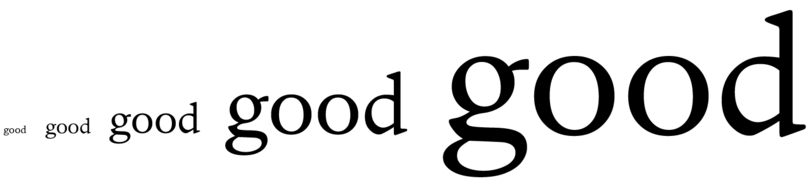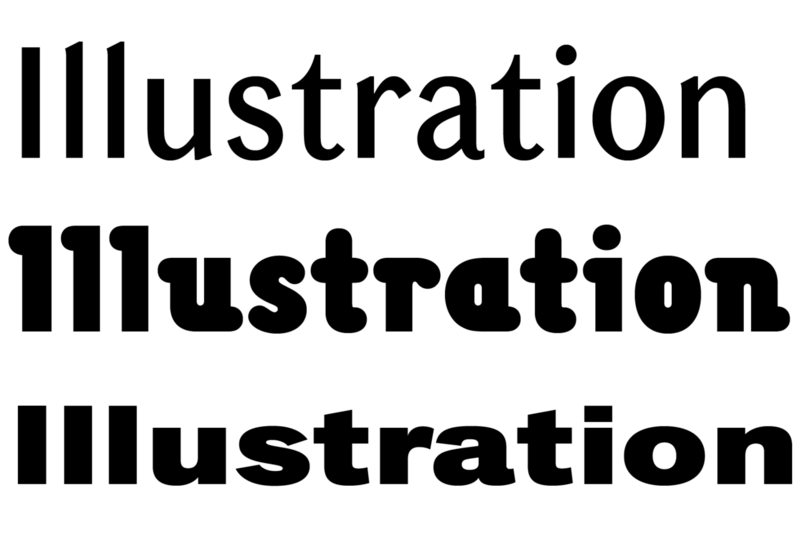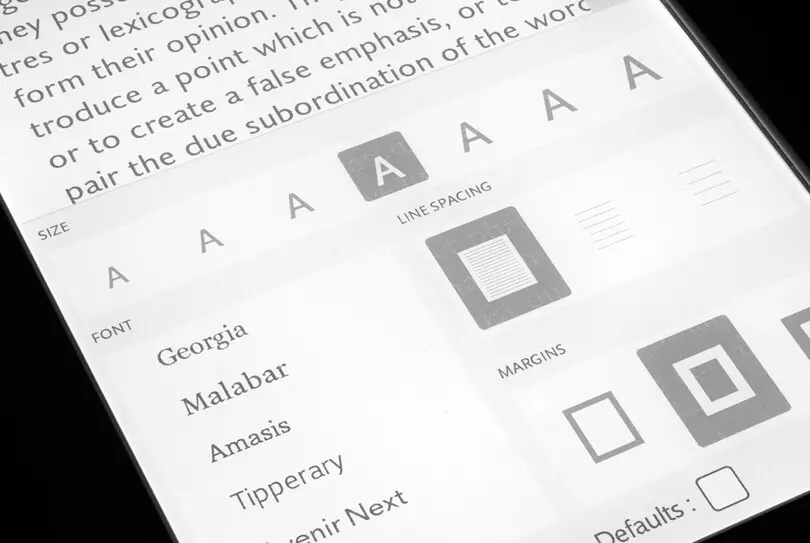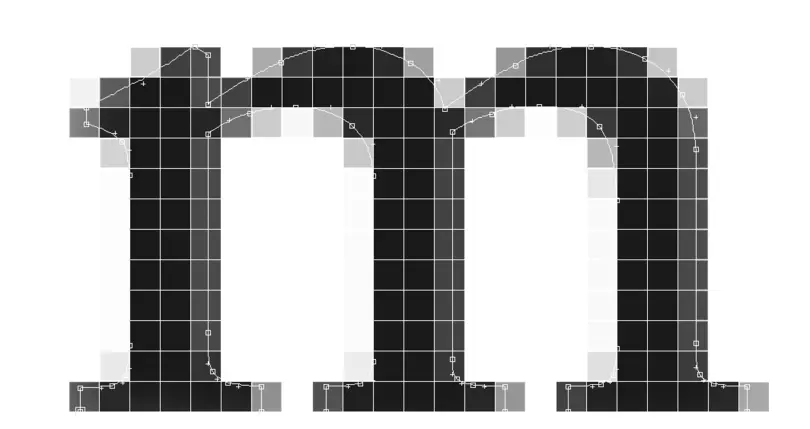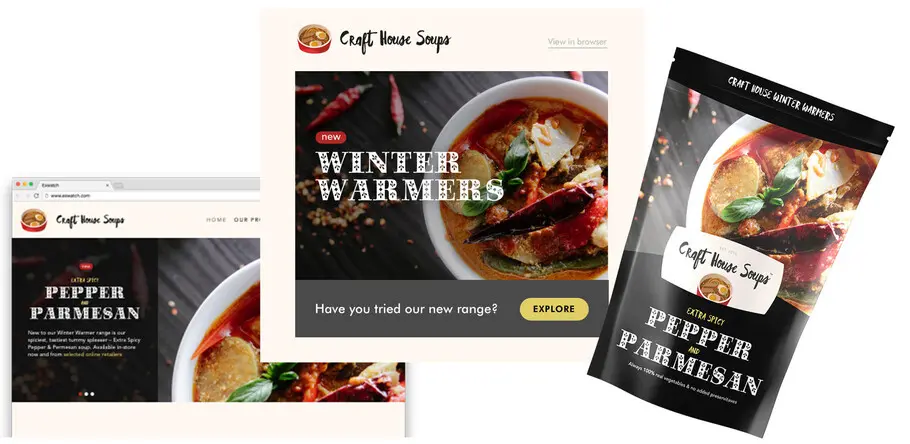
「 Serifs are often used for printed body copy to visually connect the lines of text, guiding the eye across each line like train tracks. 」
Whether you are looking for a new brand font or want to establish a consistent, optimized visual identity across the web, you’ll need a font that works everywhere. In addition to choosing the right kind of font, it’s important to consider the design of the typeface itself.
Designers are the experts on this, of course, but anyone involved in branding and marketing should understand the relationship between type design and their brand. After all, type is a brand’s primary point of connection with its customers through the content and user experience it delivers.
Here are five principles to remember when choosing a typeface for your brand:
Make sure it renders well in different sizes
A font needs to be legible when it’s tiny and maintain its integrity as its size increases. Display sizes are appropriate for very large type, such as headlines, but generally, you should test your fonts to make sure they scale well.
Print offers a superior level of control because you always know how your audience will be experiencing your design. The variables inherent in digital work, however, mean you need strong, versatile type. Look for a font family that offers a robust selection of weights, and read up on x-height, kerning, and hinting—doing so will help you choose a font that enables compelling designs and a pleasant, memorable user experience.
Consider shades of gray
There is a debate within the design community over what color your body text should be. To most eyes, standard text appears to be black, but it is in fact often rendered in a dark gray, with the exact shade varying by brand or publication. True black can be hard on the eyes, though some argue that a lower-contrast gray is difficult to read as well.
The point is, make sure a font will work with whatever shade you use. Light grays don’t always look great on the web or on mobile, so don’t be afraid to experiment with different shades, and make sure the level of contrast enhances legibility.
Give it space
Reading on a back-lit, digital device poses unique challenges to basic readability. You want the reader’s eye to move smoothly over the copy, and text that is too compressed or overly stretched can cause the reader to strain. Fonts with good spacing between characters, open shapes, varying proportions, and distinct letterforms work well for digital. Tight tracking might work in printed newspaper articles, but it doesn’t always fly online.
In general, type that is very large can be spaced closely together. If it is very small, the opposite is true. It comes down to screen size and viewing distance: The difference between user experiences on a phone screen and on a desktop screen is considerable, and the acid test for type is whether it’s comfortable to read.
Correct spacing, paired with appropriate text color, helps to create an efficient, hassle-free customer experience. You want your customers to easily read product descriptions, calls to action, and other touchpoints along the buyer’s journey, so it’s essential to make the act of reading enticing.
Another concern is screen real estate. Some online use cases, such as digital ads, place severe restrictions on the amount of text that can be used. A nice, narrow sans serif font can save on valuable space in a world where assets need to be designed for the same level on legibility on the largest desktop monitor and the smallest phone.
How to choose a font that works everywhere.
Form matters
Serifs are often used for printed body copy to visually connect the lines of text, guiding the eye across each line like train tracks. However, serifs—especially thin serifs—don’t necessarily translate well to pixels at small sizes, and those delicate, curved font feet can feel like visual noise on the web.
This directly affects the way customers interact with your brand, so consider a complementary sans serif typeface (or a serif that was built for eText, such as Garamond eText or Dante eText) where usability is paramount. Remember that serif fonts do work well in larger digital text, such as headlines, and can give a piece a scholarly look.
With sans serif fonts, steer away from options with similar letterforms, such as fonts where upper-case Is are indistinguishable from lower-case Ls. This issue is exacerbated on small and low-resolution screens and forces the reader to linger over perplexing text.
If you do want to use a serif typeface (this article is set in Malabar®, a sturdy slab serif), make sure you use a web font. Web fonts are optimized for pixel rendering, which reduces the pixelation that often muddies fonts at low resolutions. This results in cleaner, sharper text that does a better job of maintaining the font’s visual integrity. It also ensures your type will be on-brand for every user.
It’s also important to remember that type serves a purpose. It presents content. It guides buyers through the purchasing journey. It connects people with customer service. Type does actual work, representing the brand and forging a simple, straightforward connection with the customer. If type is too plain, branding will suffer. Too many frills, and the customer may tune out. It’s about balancing form and function, and each brand will find that balance on its own.